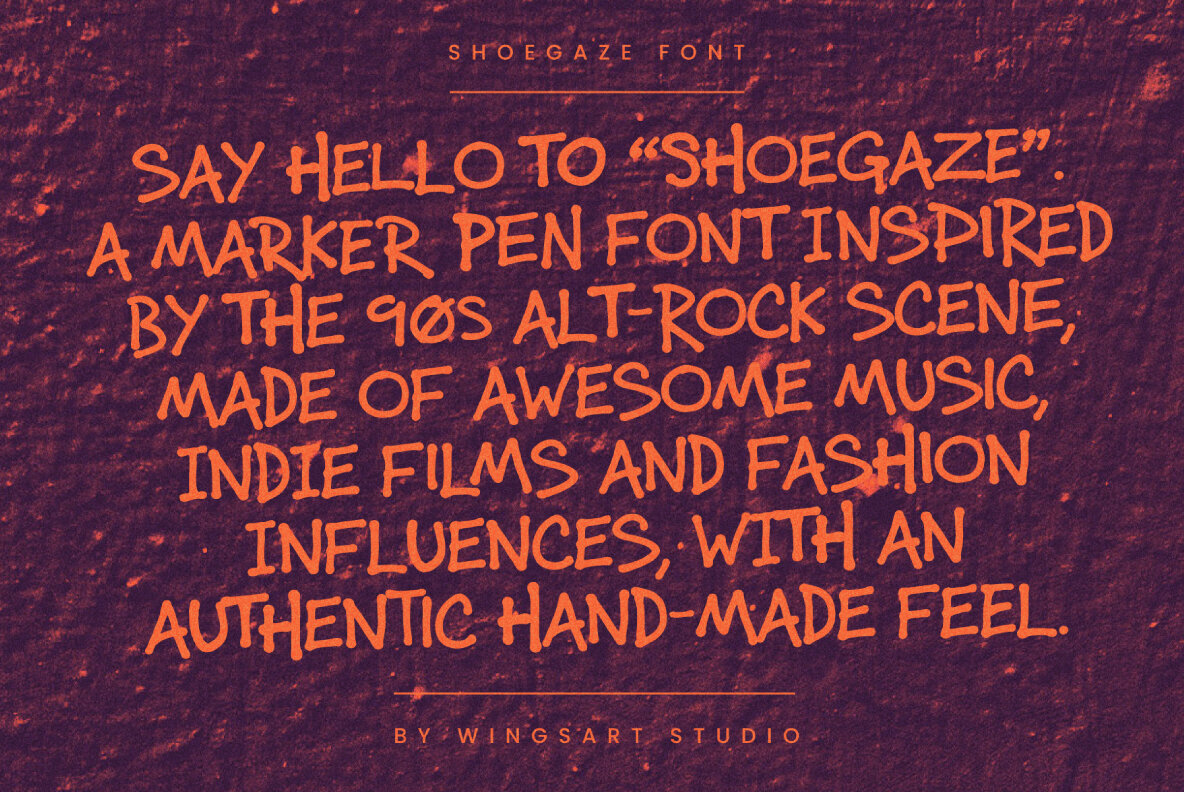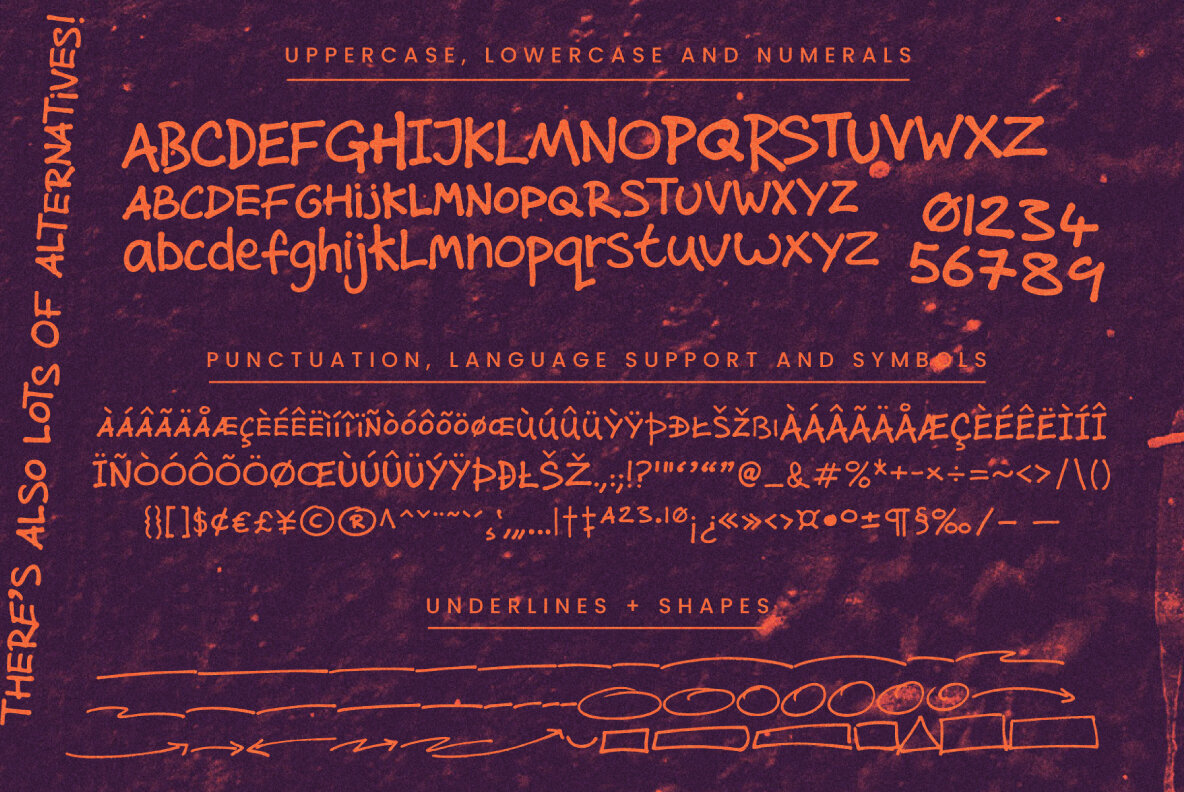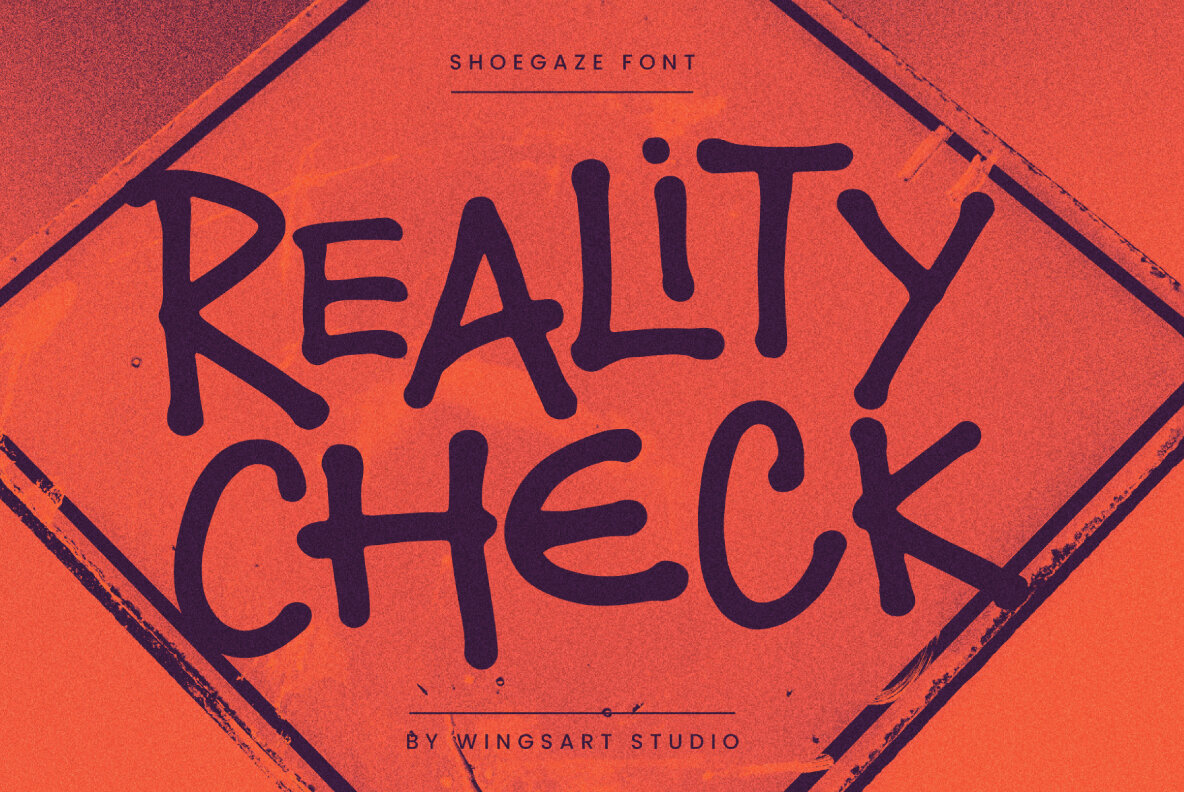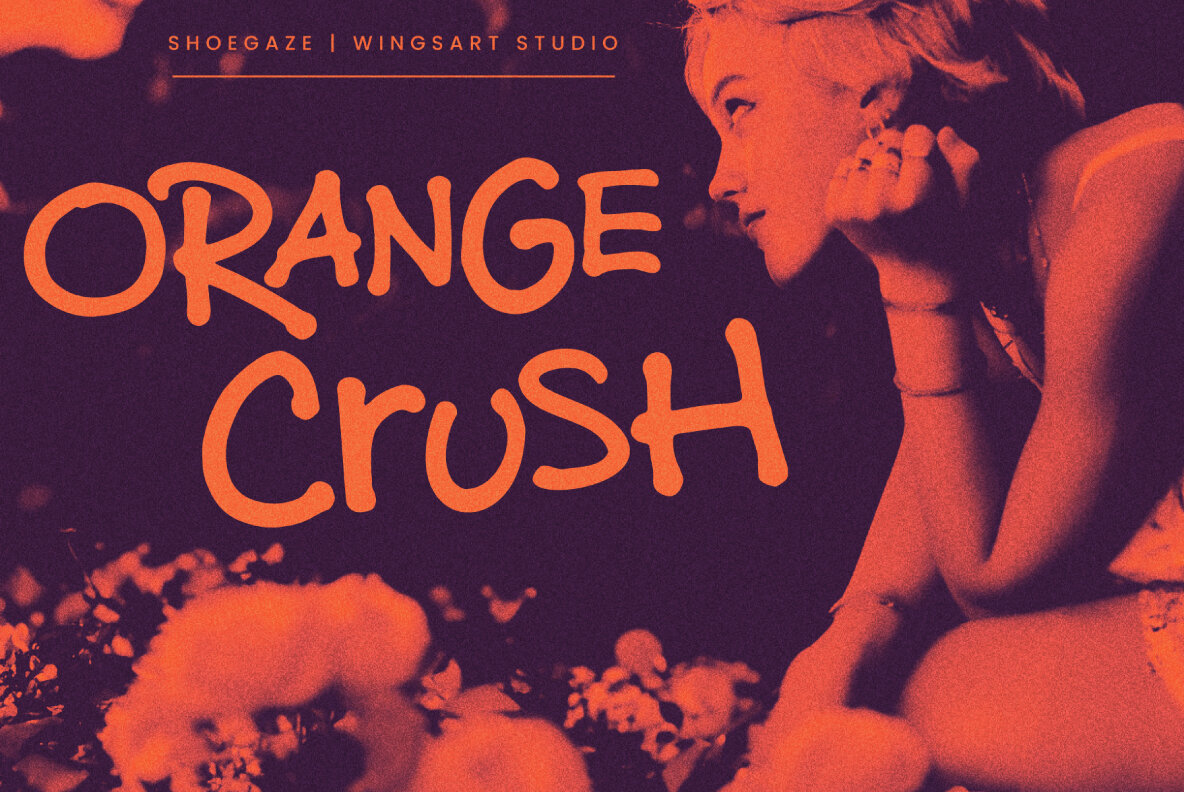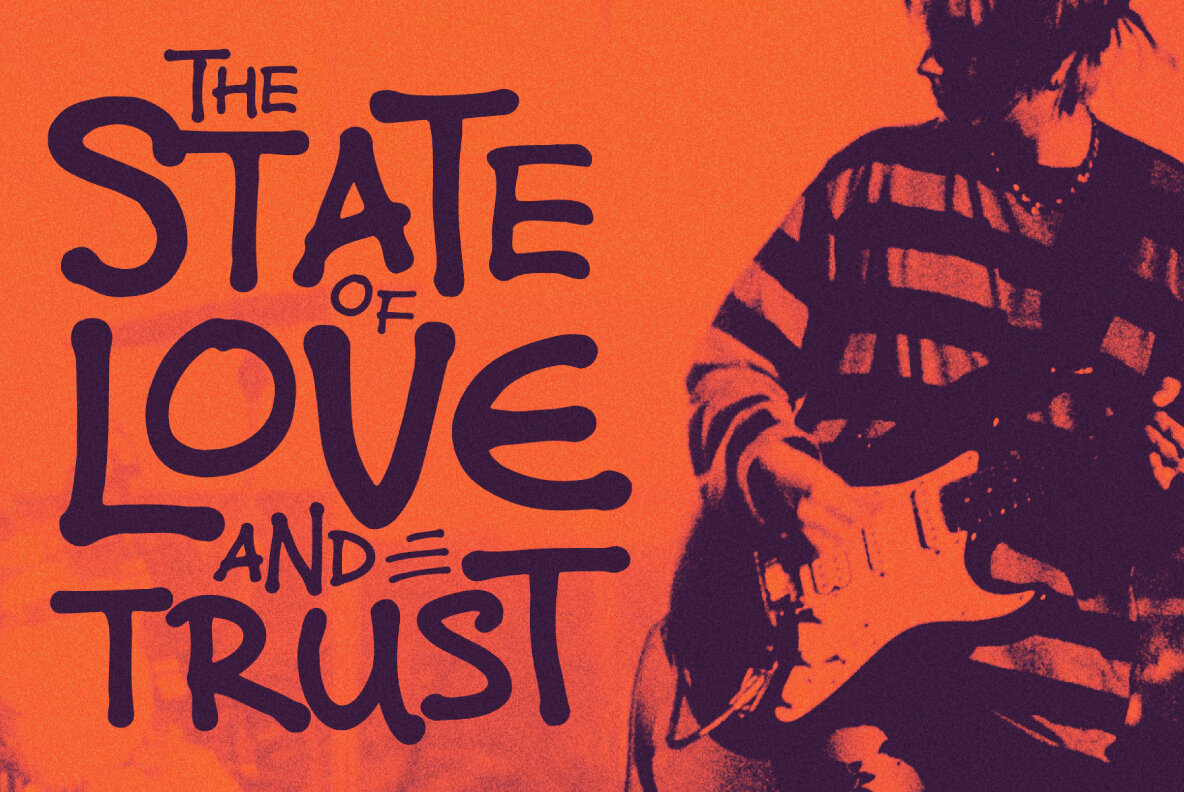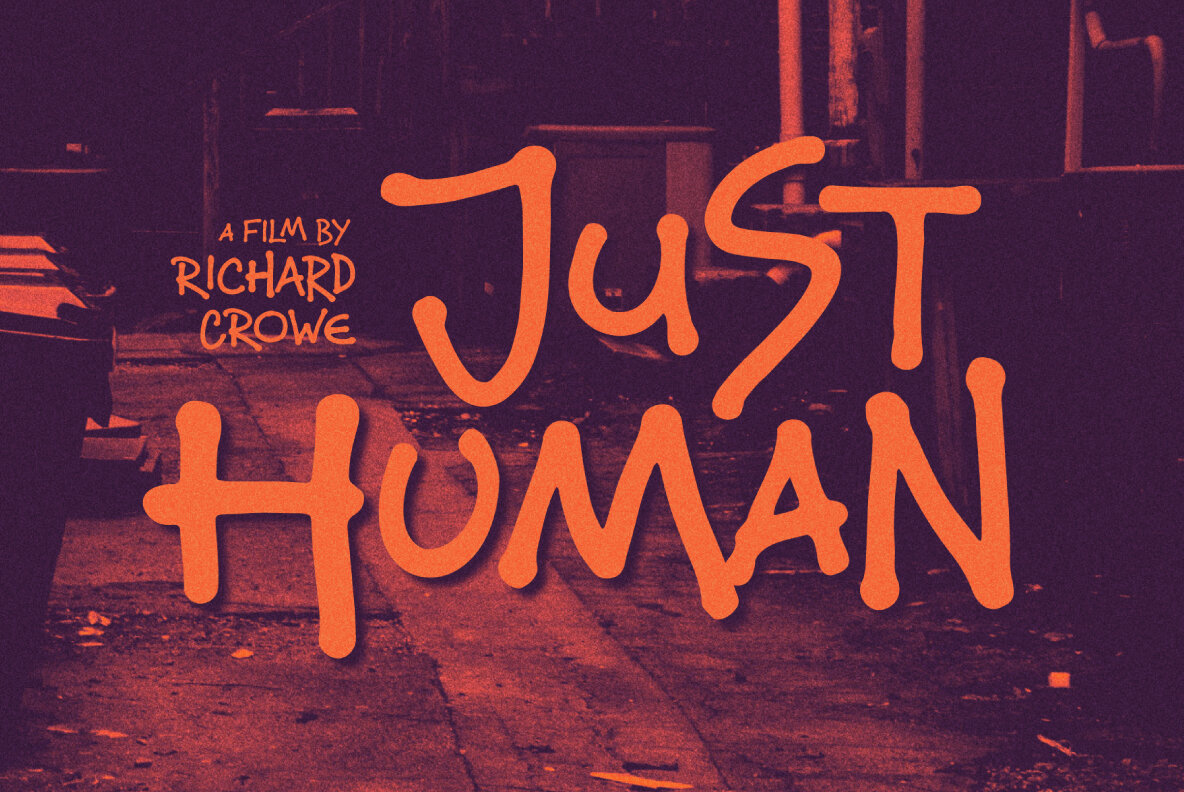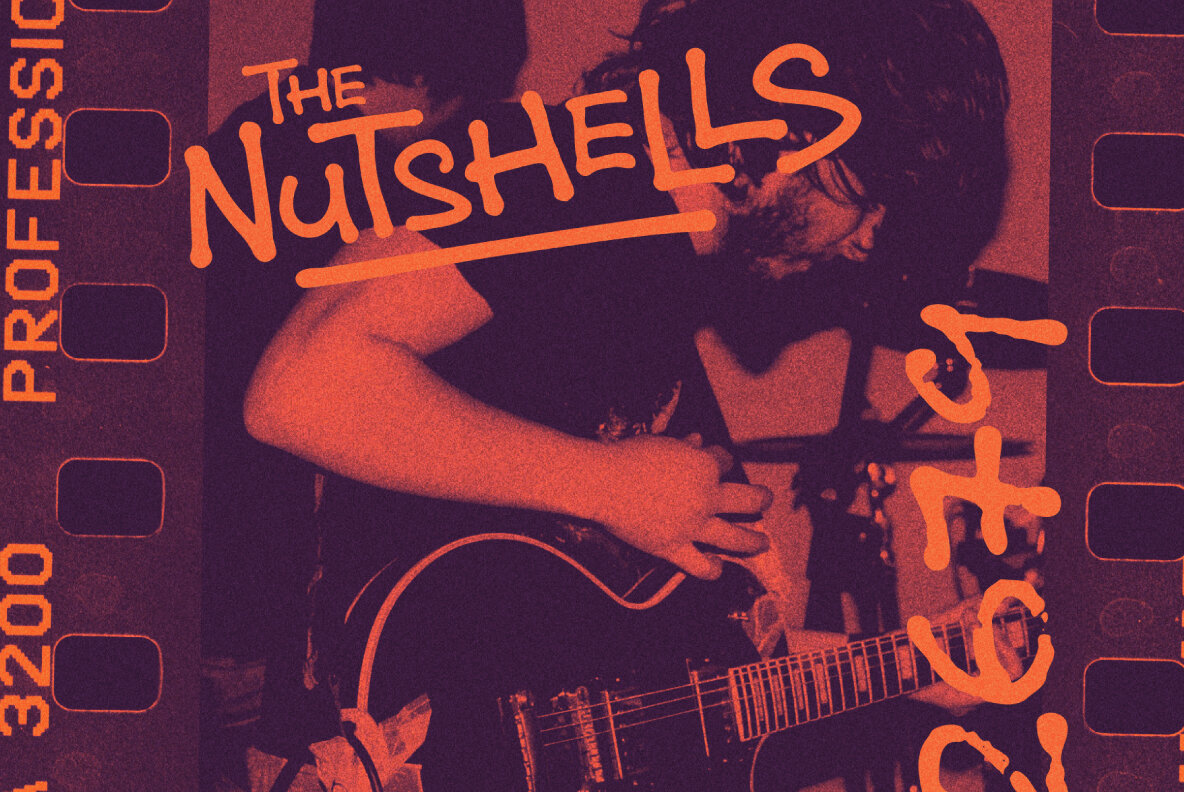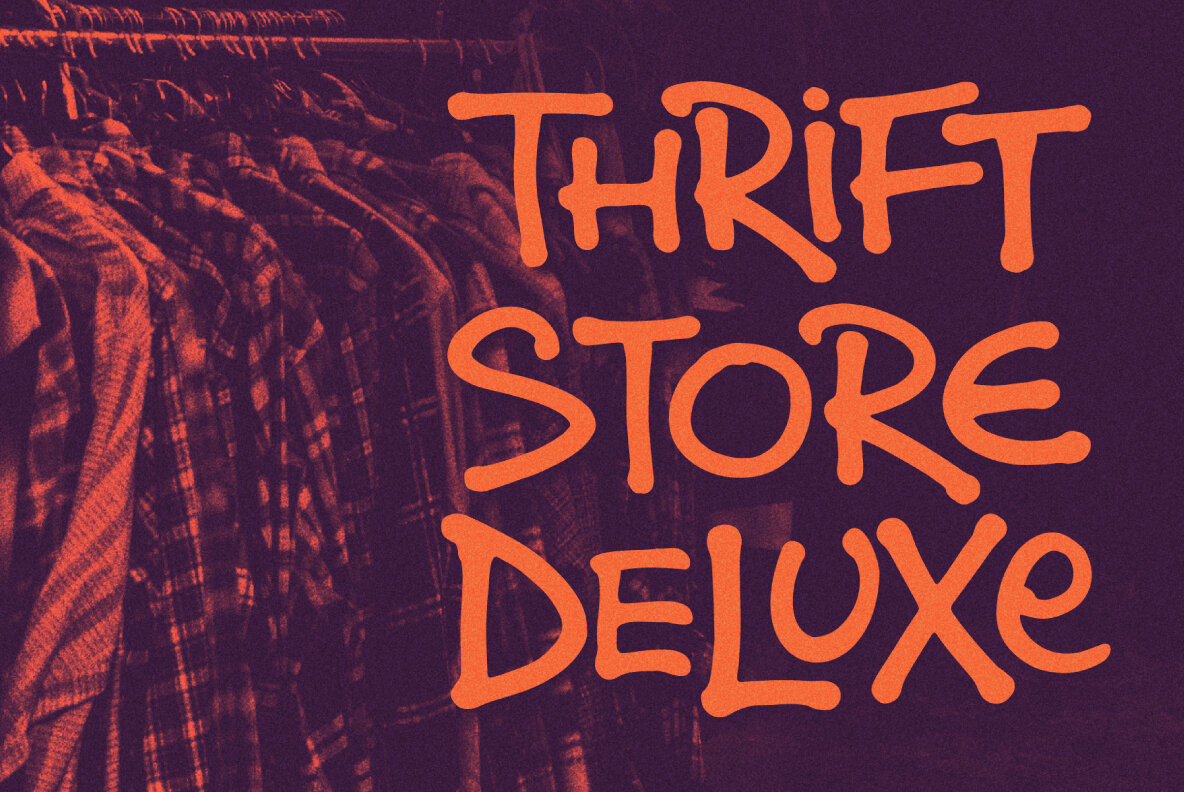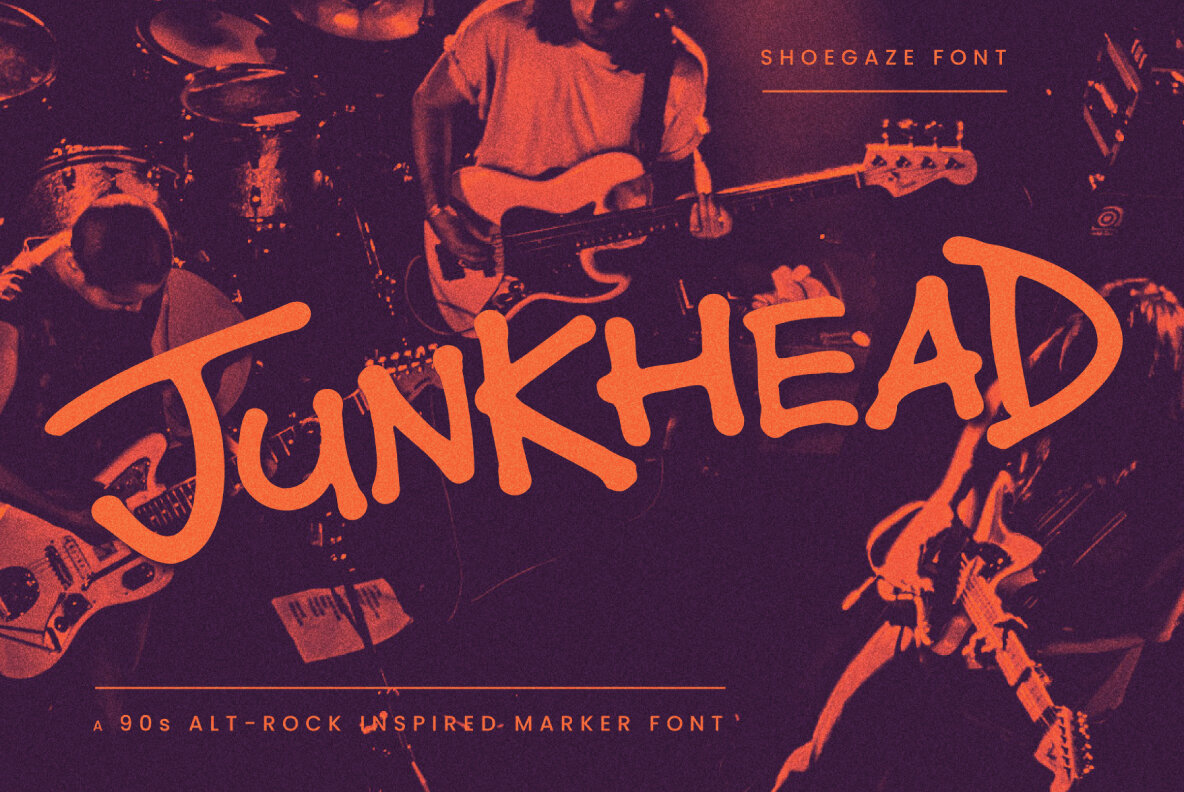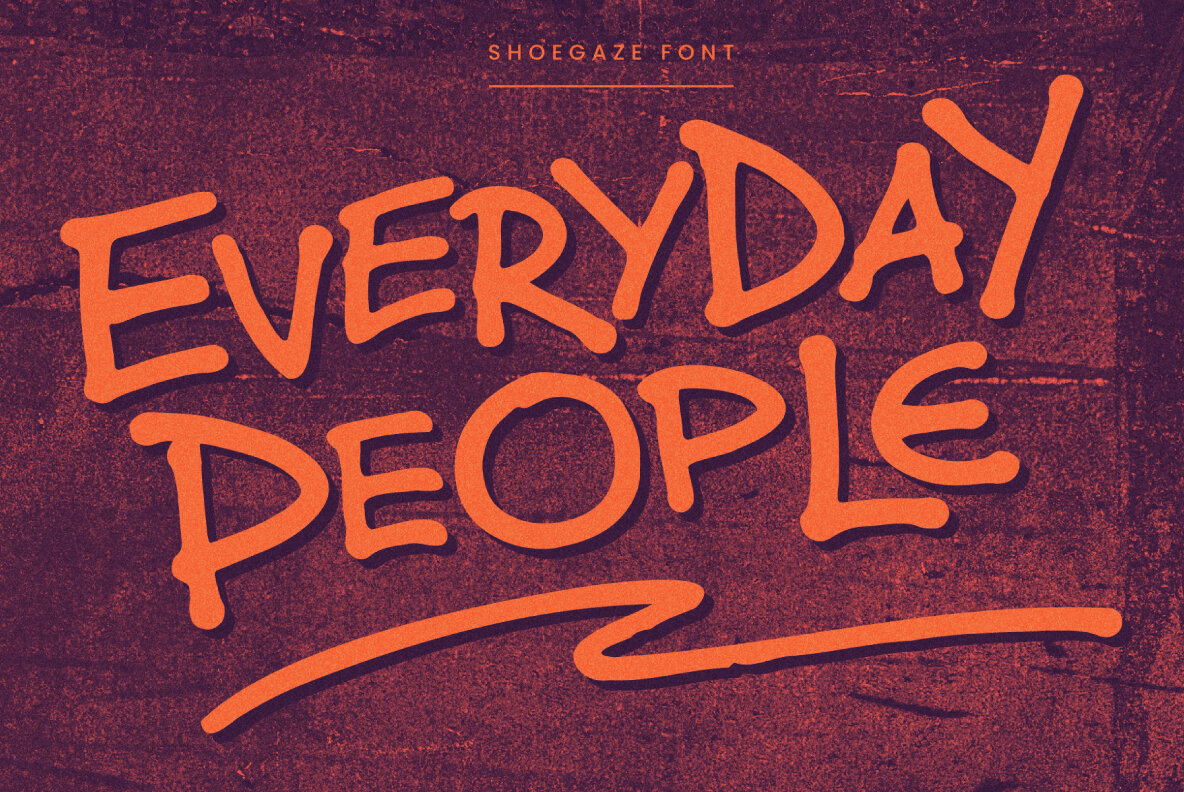
Shoegaze Font
A Hand-written font inspired by 1990s Alt-Rock, Indie Film and Fashion. Say hello to Shoegaze. A marker pen font inspired by the 90s Alt-Rock scene, made of awesome music, indie films and fashion influences, with an authentic hand-made feel. A sub-genre of the alternative rock scene, Shoegaze shares the characteristics of Grunge, Punk and Psychedelia, adding its own brand of dreamy distortion, soft vocals and melancholy themes. It provided the soundtrack to 90s independent cinema, linking sound and vision to a hand-made aesthetic employed by filmmakers such as Jim Jarmusch, Richard Linklater and Cameron Crowe, across their title sequences, posters and trailers. It’s a visual style that speaks of a low-fi, adolescent attitude where type is character in your overall design. Shoegaze offers it’s Regular style which includes three complete sets of uppercase and lowercase alternatives, and then matches that with another Textured version which provides a much more distressed look. All of which add up to countless creative options and a quick and easy way to re-create a truly hand-made look across multiple designs and layouts. Numerals, punctuation, symbols and language support are also included, along with a further collection of underlines, symbols and shapes.